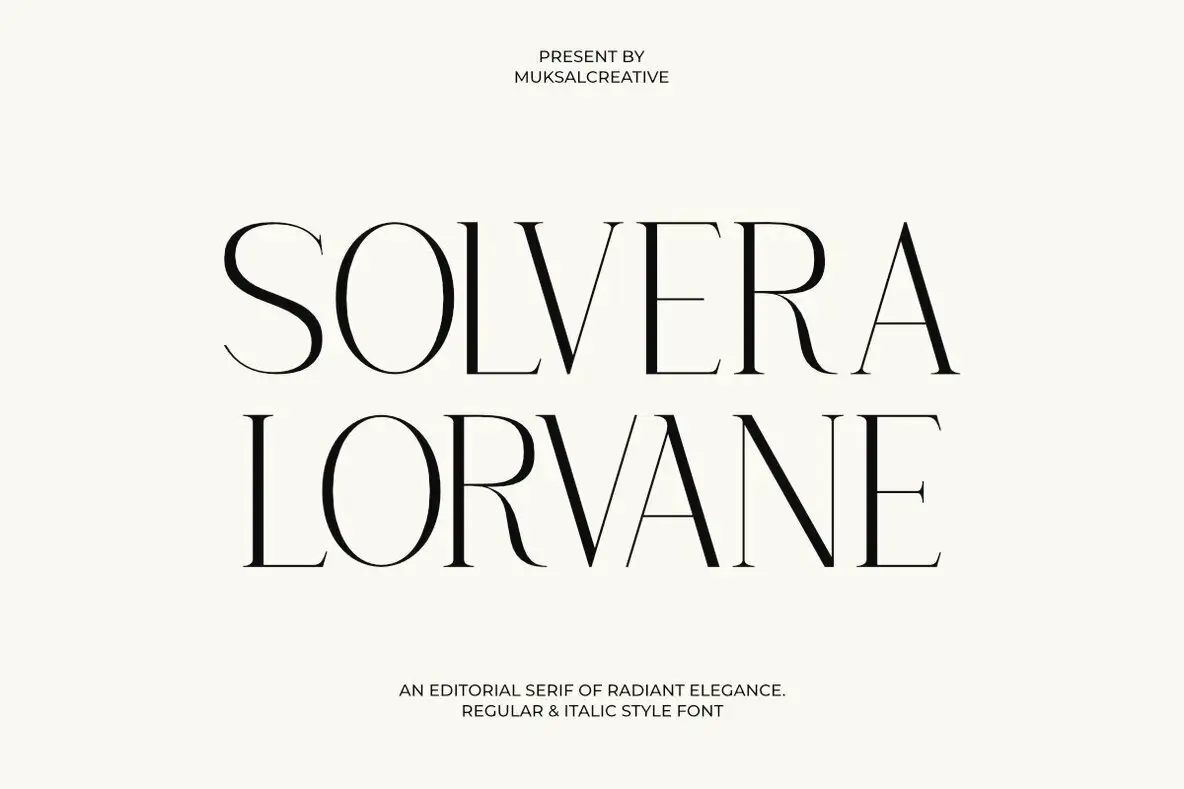
Solvera Lorvane Font
Solvera Lorvane Regular
Solvera Lorvane Italic
Discover the elegance of Solvera Lorvane, an editorial serif font that embodies timeless sophistication and modern artistry. Perfectly suited for luxury branding, magazines, and creative endeavors, this typeface captures the essence of quiet confidence and refined beauty. With its balanced contrast, graceful curves, and delicate detailing, Solvera Lorvane is the ideal choice for high-end logos, wedding stationery, fashion editorials, and premium packaging.Solvera Lorvane: Timeless Editorial Serif